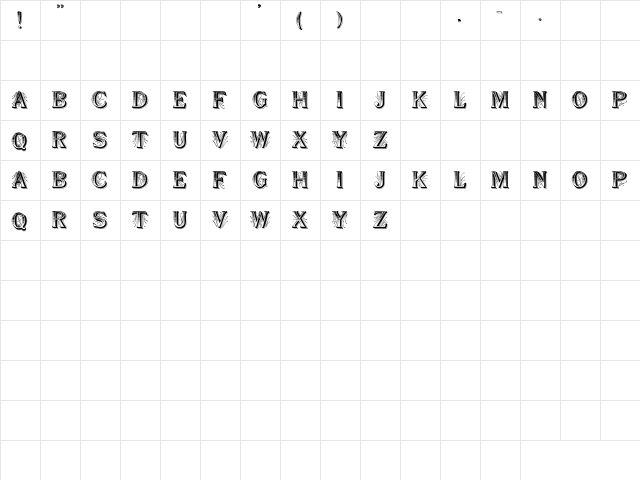
GE Saloon Engraved Caps Regular
Design Context for GE Saloon Engraved Caps Typeface
GE Saloon Engraved Caps taps into classic Western woodtype traditions — bold, characterful, and impossible to ignore.
Perfect for barbecue restaurants, country music branding, vintage poster design, and rustic packaging.
Font Pairing: Combine GE Saloon Engraved Caps with a simple slab or neutral sans — period-accurate companions reinforce the vintage feel without competing for attention.
Pro Tip: Pair GE Saloon Engraved Caps with aged textures or distressed backgrounds to amplify its vintage personality.